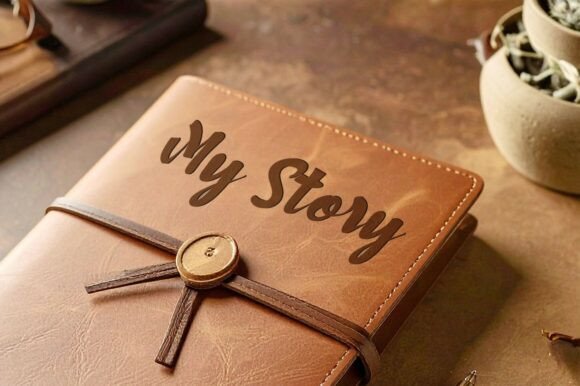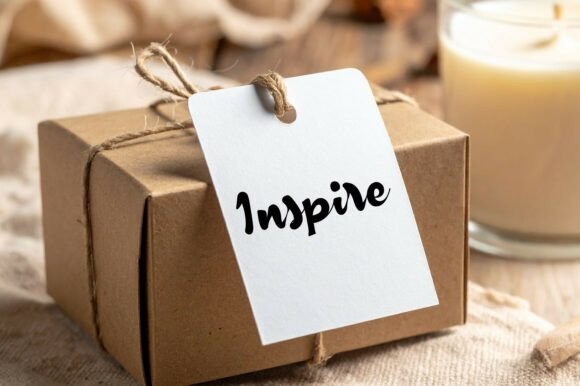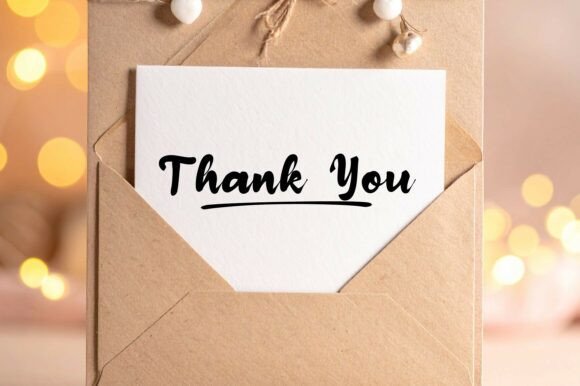
Introduction to Atusan Script Font
“Atusan Script” is a charming, natural, and friendly handwritten script font that exudes warmth, authenticity, and a personal touch.
What makes it good and different is its approachable, fluid strokes, designed to mimic genuine handwriting with a relaxed and inviting feel The letters connect seamlessly, often with slight variations in height and thickness, giving it a truly organic and human quality.
Key Features of Atusan Script Font
Why Choose Atusan Script Font?
Atusan Script Font offers exceptional quality and versatility, making it a valuable addition to your design toolkit. Whether you’re creating for personal projects or commercial use, Atusan Script Font delivers professional results.